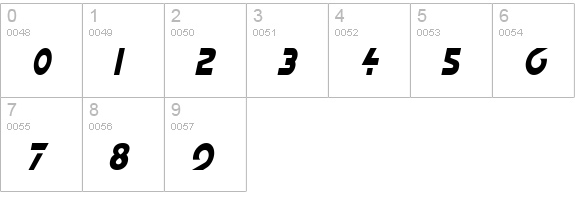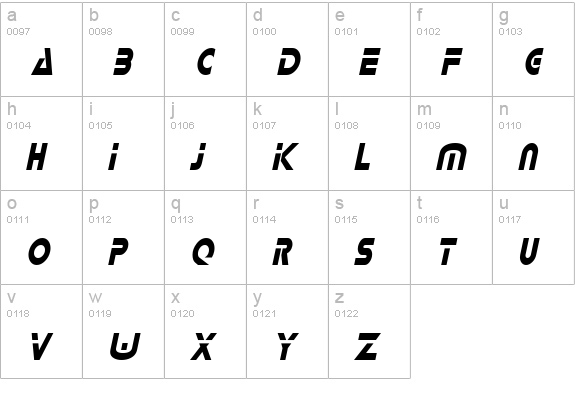
DeltaCondensed Italic Font Details
DeltaCondensed Italic is a distinctive, italic variant in the DeltaCondensed typeface family \xE2\x80\x94 well suited to design and typography projects.
DeltaCondensed Italic font is a sleek and modern typeface that exudes elegance and sophistication. Its slanted design adds a touch of flair to any project, making it perfect for creating eye-catching headings or adding emphasis to your text. The italicized characters of DeltaCondensed give a sense of movement and dynamism, making your words come alive on the page. This versatile font is ideal for a wide range of design applications, from branding to editorial design to web design. Its condensed form allows you to fit more text in a limited space without sacrificing readability, making it a practical choice for projects with space constraints. Best of all, DeltaCondensed Italic font is completely free to download at FontsMarket.com. Whether you're a professional designer looking for a new addition to your font library or a hobbyist looking to spice up your personal projects, DeltaCondensed Italic is a fantastic choice that won't cost you a penny. Download it today and add a touch of sophistication to your designs.